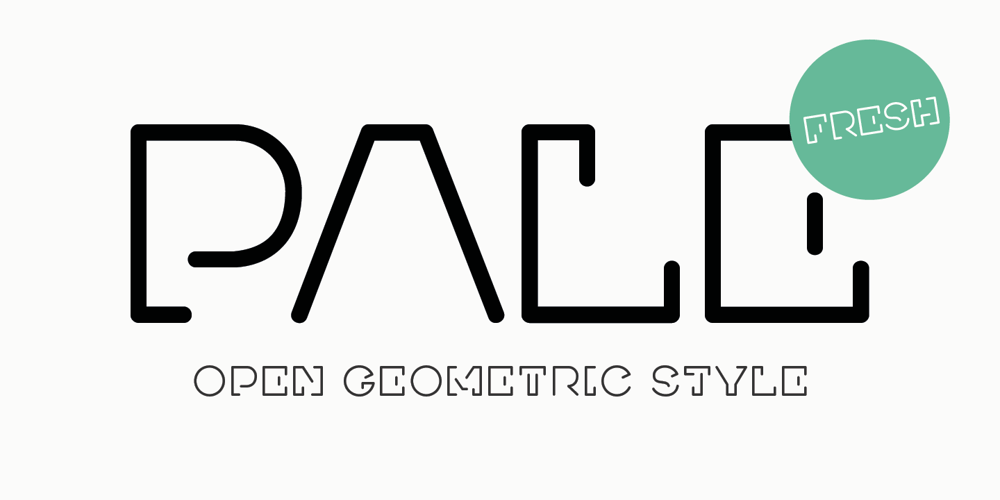
Pale Font Family was designed by Ossi Gustafsson and published by Hiekka Graphics. Pale contains 1 styles and family package options. Pale is an experimental geometric monoline sans font. Pale will look great in the headings and will be a functional addition to the design work. Pale is a bold choice for logo designs, posters, identity and packaging, headlines, editorial design and album covers.